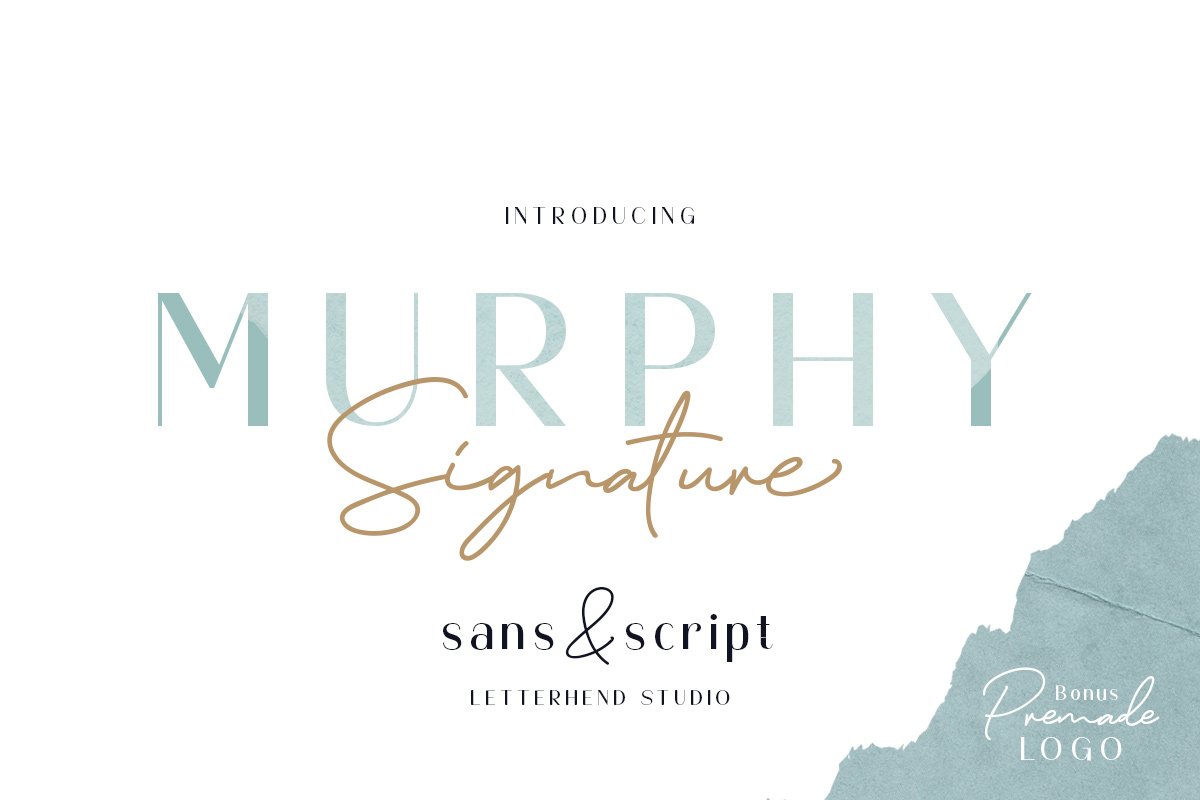
Murphy - Script & Sans Font
Murphy - Script & Sans Font excels in wedding invitations, luxury brand logos, high-end restaurant menus, fashion boutique signage, premium product packaging, elegant business cards, sophisticated website headers, upscale event branding, jewelry store materials, and beauty salon branding. This versatile font duo works beautifully for spa and wellness centers, art gallery exhibitions, wine label designs, premium real estate marketing, luxury hotel branding, fine dining establishments, and exclusive membership club materials.
What makes Murphy - Script & Sans Font so exciting is its perfect harmony between elegant script flourishes and clean sans-serif precision. The script version delivers sophisticated cursive elegance with flowing letterforms that exude luxury and refinement, while the sans component provides modern clarity and professional readability. This dual-nature design allows creators to establish visual hierarchy while maintaining consistent brand personality throughout their projects. The seamless integration between both styles creates stunning typographic combinations that elevate any design from ordinary to extraordinary, making it an invaluable asset for premium branding projects.
The Murphy - Script & Sans Font family offers comprehensive typographic solutions with multiple weight variations and style options. The script family includes regular, bold, and light versions with decorative alternates, swashes, and ligatures that add personalized touches to any text. The sans-serif companion features matching weights that perfectly complement the script elements, creating cohesive design systems. Additional features include extended character sets, multilingual support, and special symbols that enhance versatility across international markets and diverse design applications.
For designers seeking sophisticated typography that commands attention and respect, Murphy - Script & Sans Font Free Download delivers unmatched elegance and functionality. This remarkable font pairing transforms standard text into luxurious visual experiences that resonate with discerning audiences. The combination of flowing script beauty and clean sans-serif efficiency makes it ideal for brands that want to communicate both creativity and professionalism, ensuring your designs leave lasting impressions while maintaining excellent readability across all media formats.